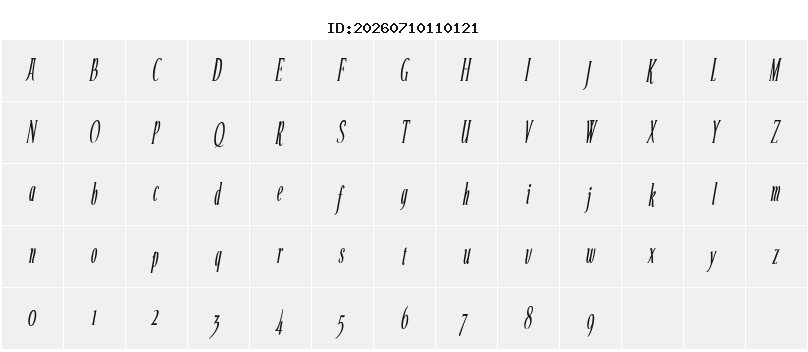
• Font Name: Echelon Condensed
Echelon Condensed.ttf is a modern, elegant sans-serif font designed for ultimate readability and visual harmony. Perfect for branding, headlines, web design, and print materials.